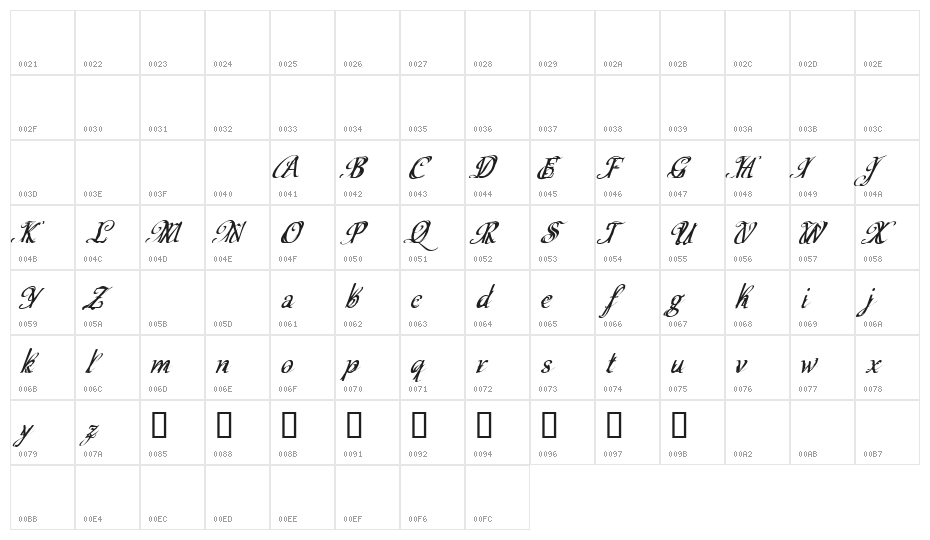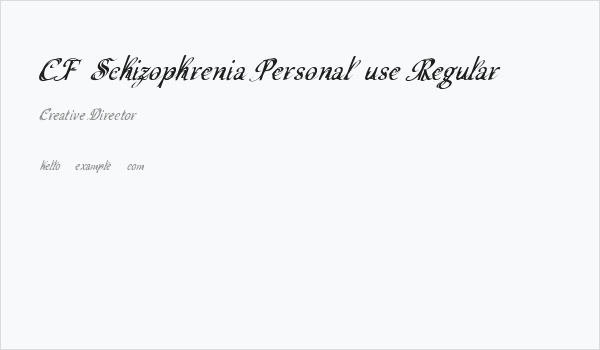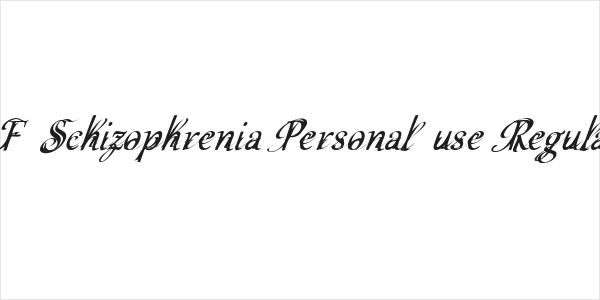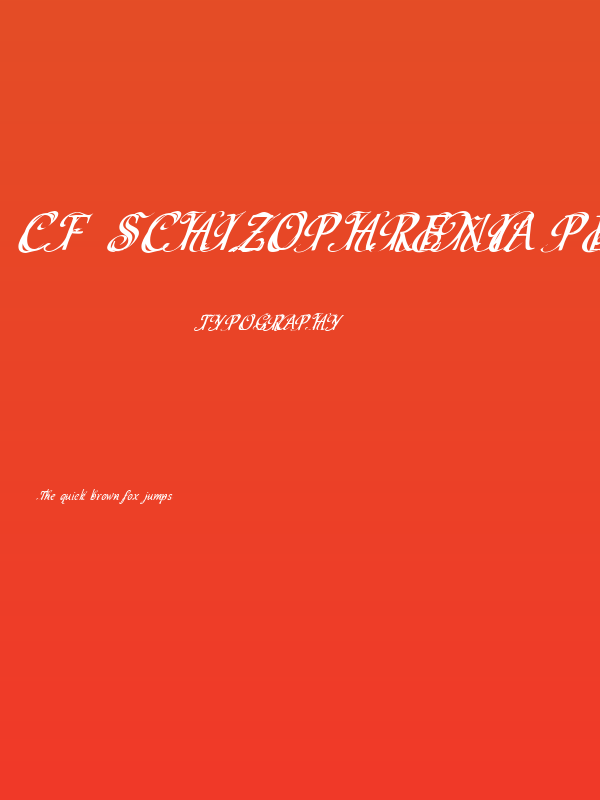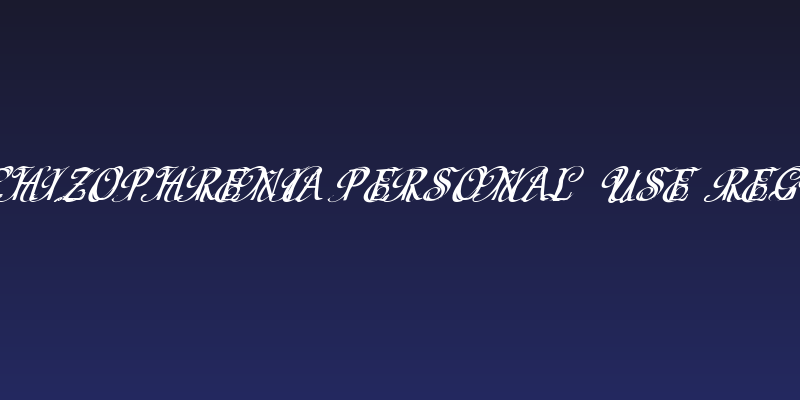
CF Schizophrenia Personal use Regular Font
CF Schizophrenia Personal use Regular Description
This font features a highly decorative and intricate script style, characterized by elegant, flowing lines and elaborate swashes. The uppercase letters exhibit a dramatic flair with extended strokes and loops, while the lowercase letters maintain a consistent cursive form. The overall appearance is ornate and sophisticated, making it suitable for artistic and expressive designs. The font's unique style is reminiscent of calligraphic handwriting, with a touch of vintage charm. It offers a sense of elegance and creativity, perfect for projects that require a distinctive and eye-catching typeface.
| Use Case | Logos, Invitations, Artistic designs |
| Proposed Projects | Ideal for wedding invitations, greeting cards, branding, and artistic projects requiring a sophisticated touch. |